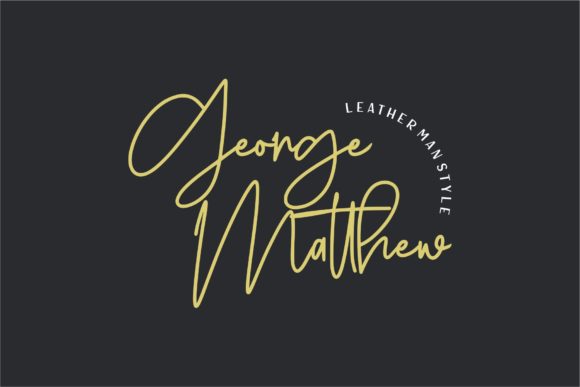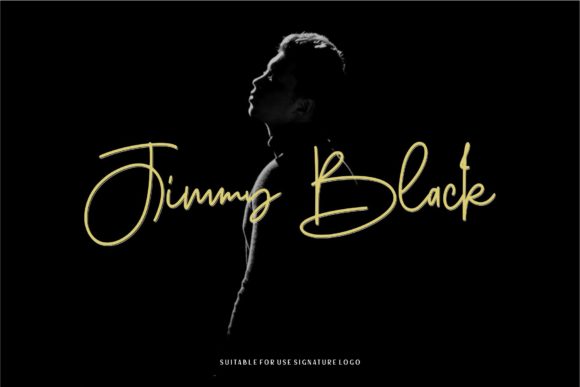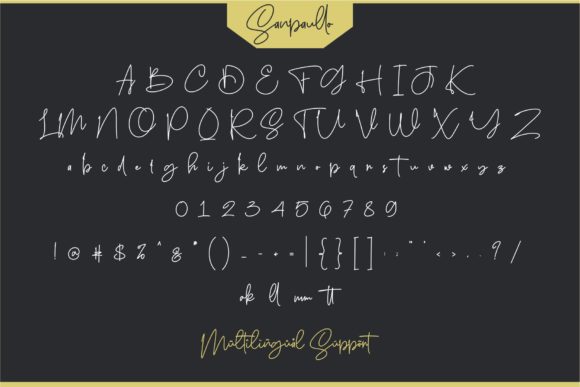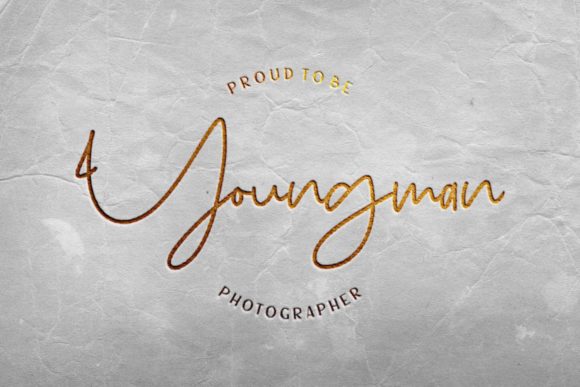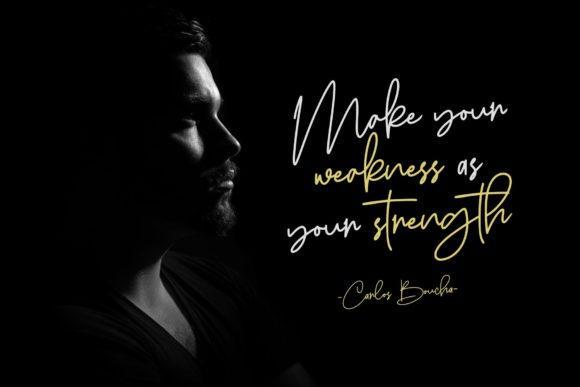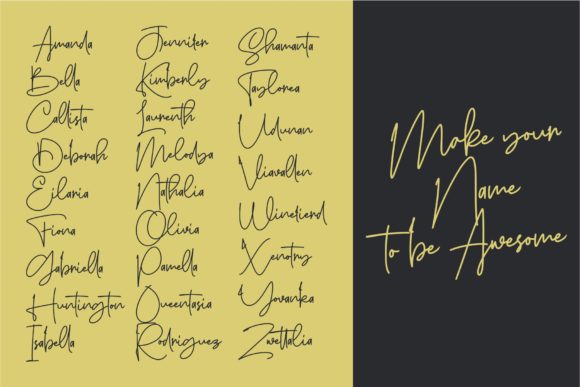
Introduction to Sanpaullo Font
Have you ever been stuck on a creative project, scrolling through font options, trying to find that perfect combination of style and sophistication? It’s a moment we’ve all been in, and it’s where the magic of discovering a new font comes in – and that’s exactly what happened when we stumbled upon the beautiful Sanpaullo Font.
This natural handwritten font is a game-changer for designers, offering a unique feel that’s both light and modern. With its high-quality design, Sanpaullo Font is a valuable addition to any design resource, allowing you to add a personal touch to your creative projects.
What sets Sanpaullo Font apart is its versatility – it’s perfect for everything from social media graphics to blog posts, and with a transparent background, it’s easy to layer and combine with other design elements. And the best part? It’s available for free download, making it an accessible resource for designers of all levels.
Key Features of Sanpaullo Font
- High-quality design: Sanpaullo Font is a well-designed font that offers a unique and creative touch to any project.
- Transparent background: The font’s transparent background makes it perfect for use on images with complex backgrounds.
- High-resolution design: Sanpaullo Font is designed at a high resolution, making it suitable for use in large-scale projects and print materials.
- Unique characteristics: The font’s unique design elements, such as its irregular shapes and lines, make it stand out from other fonts and add a creative touch to any project.
- Perfect for creative projects: Sanpaullo Font is ideal for use in creative projects, including graphic design, digital art, and typography-based designs.
Honest Review: Sanpaullo Font
As a designer, I’m always on the lookout for high-quality design resources to elevate my creative projects. Recently, I had the chance to try out the Sanpaullo Font, and I’m excited to share my thoughts with you.
What works well: ✨ The Sanpaullo Font is incredibly versatile, with a modern and sleek design that’s perfect for a wide range of creative projects. It’s also available for free download, which is a huge bonus for designers on a budget. The font is highly legible and easy to read, making it an excellent choice for body text or headings.
- ✨ Versatile and modern aesthetic
However, there are a few limitations to consider: ⚠️ The font is only available in a single weight, which may limit its use in certain design contexts. Additionally, the font doesn’t come with a transparent background option, which may be a drawback for designers who need to use it on top of images or other backgrounds.
Overall, I’m impressed with the Sanpaullo Font. It’s a solid addition to any designer’s toolkit, and its free download option makes it an excellent choice for designers on a budget. While it may not be perfect, it’s a great resource for designers who need a high-quality, modern font for their creative projects.
For getting the most out of the Sanpaullo Font, consider using it for headings and titles in your designs. This font is particularly well-suited for creative projects that require a high level of sophistication and elegance. Some common use cases for the Sanpaullo Font include:
- Business presentations and reports
Q: Does the Sanpaullo Font have a transparent background?
Yes, the Sanpaullo Font features a transparent background, making it ideal for use on images with complex backgrounds. This allows designers to easily combine the font with other design elements, creating a seamless and polished look.